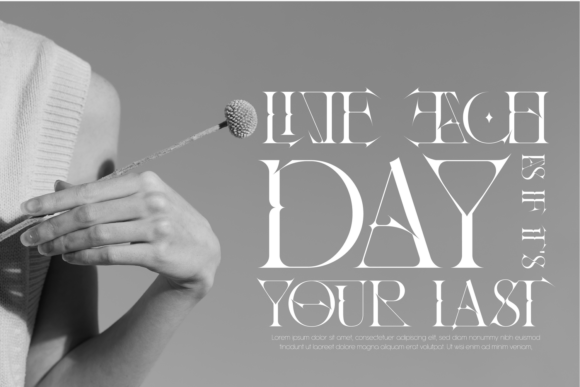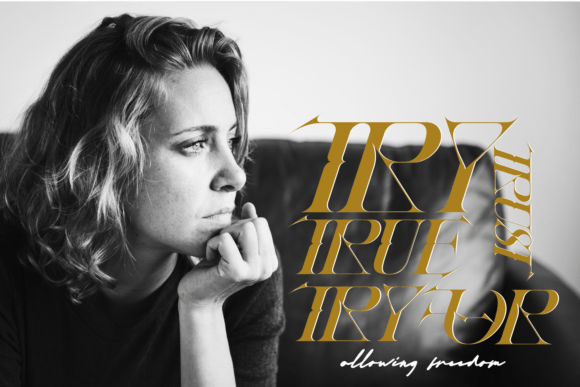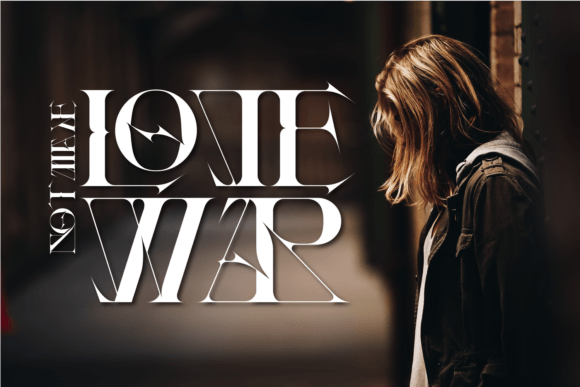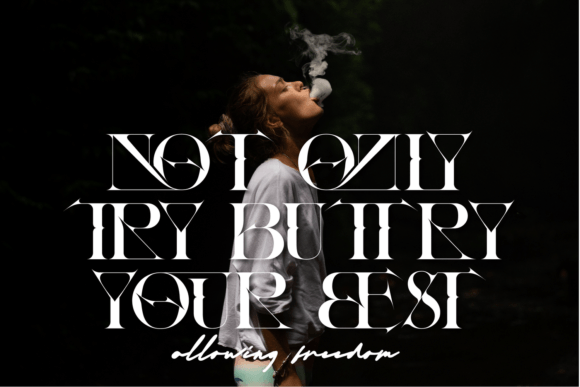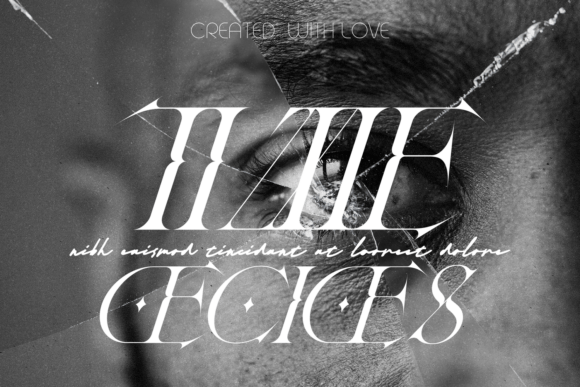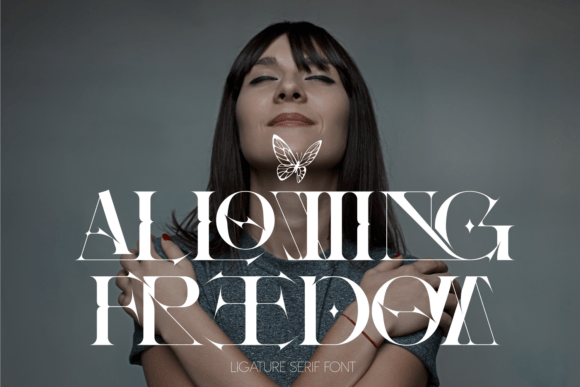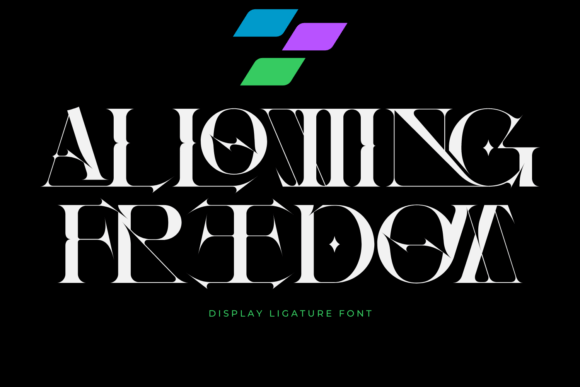
Introducing Allowing Freedom Font: Elevate Your Designs with Elegance and Sophistication
In the world of typography, a font can make or break a design. It’s the foundation upon which creativity is built, and the right choice can elevate a project from ordinary to extraordinary. For designers and crafters seeking a modern and unique serif font, look no further than Allowing Freedom Font. This stylish and elegant typeface is poised to captivate your audience with its contemporary charm and timeless sophistication.
The Distinctive Features of Allowing Freedom Font
Allowing Freedom Font boasts fluid, graceful strokes that set it apart from more traditional serif fonts. Its cascading aqua serifs dance across your designs, creating a harmonious symphony of visual delight. This modern serif font is not just a pretty face; it’s built with OpenType features, making it versatile and highly functional. With 100 ligatures, alternate characters, numbers, punctuation, and support for multiple languages, Allowing Freedom Font is designed to meet the needs of a wide range of design projects.
Unleash Your Creativity with OpenType Features
The OpenType features of Allowing Freedom Font offer designers a wealth of creative possibilities. The inclusion of 100 ligatures allows for a high degree of customization, enabling you to create unique and visually appealing text. The alternate characters provide further flexibility, giving you the option to vary your design and keep it fresh. Whether you’re working on a branding project, a website, or a print design, the OpenType features of Allowing Freedom Font will help you achieve your vision.
Allowing Freedom Font’s versatility makes it suitable for a wide range of design projects. From elegant logos and sophisticated websites to beautiful print materials like brochures and business cards, this font is designed to impress. Its modern charm and timeless elegance ensure that your designs will stand out, whether you’re targeting a contemporary audience or aiming for a more classic look.
Language Support for Global Designers
In today’s global marketplace, designers need fonts that can support multiple languages. Allowing Freedom Font rises to the challenge, offering support for a variety of languages. This feature is particularly beneficial for designers working on international projects or for brands with a global presence. With Allowing Freedom Font, you can create designs that communicate effectively across cultural and linguistic boundaries.
Why Choose Allowing Freedom Font?
With so many fonts available to designers today, why choose Allowing Freedom Font? The answer lies in its unique blend of modernity and elegance. This font is not just a tool for communication; it’s a way to make a statement. Its distinctive serifs and sophisticated style ensure that your designs will be memorable and impactful. Moreover, the font’s versatility, thanks to its OpenType features and language support, makes it a valuable addition to any designer’s toolkit.
Tips for Using Allowing Freedom Font Effectively
To get the most out of Allowing Freedom Font, consider the following tips:
- Experiment with Ligatures: Take advantage of the 100 ligatures to add a personal touch to your designs.
- Play with Sizes: The font’s elegance shines at larger sizes, but its legibility makes it suitable for body text as well.
- Mix and Match: Don’t be afraid to combine Allowing Freedom Font with other typefaces for a unique look.
- Consider Your Audience: The font’s modern charm and timeless sophistication make it suitable for a wide range of audiences.
Allowing Freedom Font is more than just a font; it’s a design statement. Its modern and unique serif design, coupled with its elegant and sophisticated style, makes it an excellent choice for designers looking to elevate their projects. With its OpenType features, language support, and versatility, Allowing Freedom Font is poised to become a go-to font for designers and crafters around the world. Whether you’re creating a brand identity, designing a website, or crafting print materials, Allowing Freedom Font offers the perfect blend of style, functionality, and creativity.